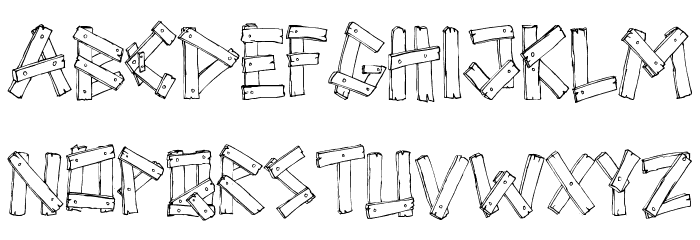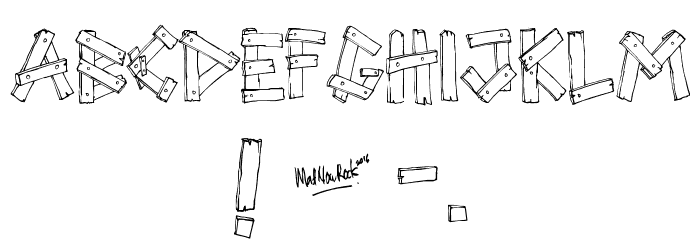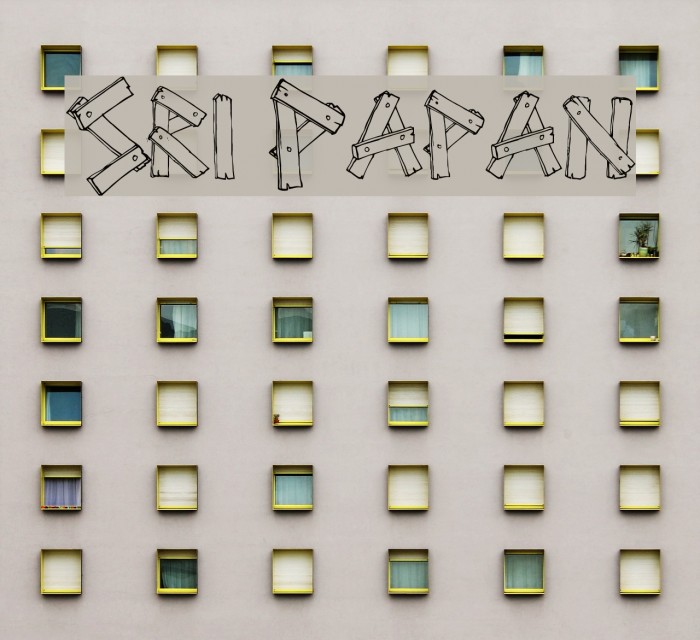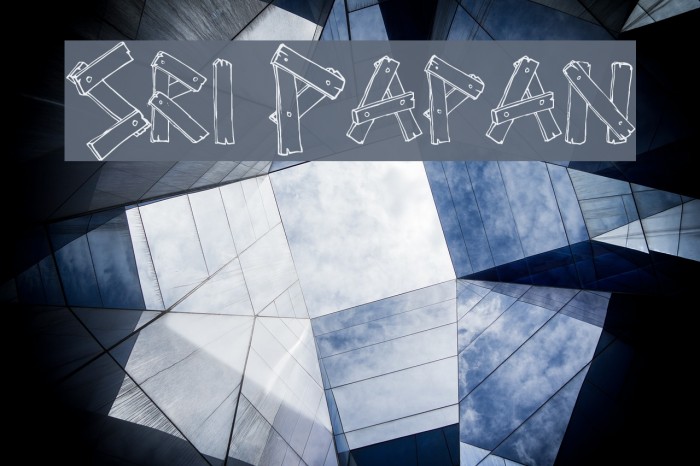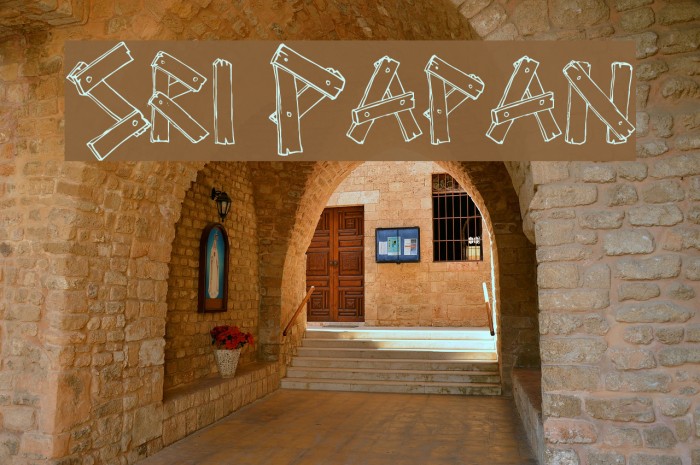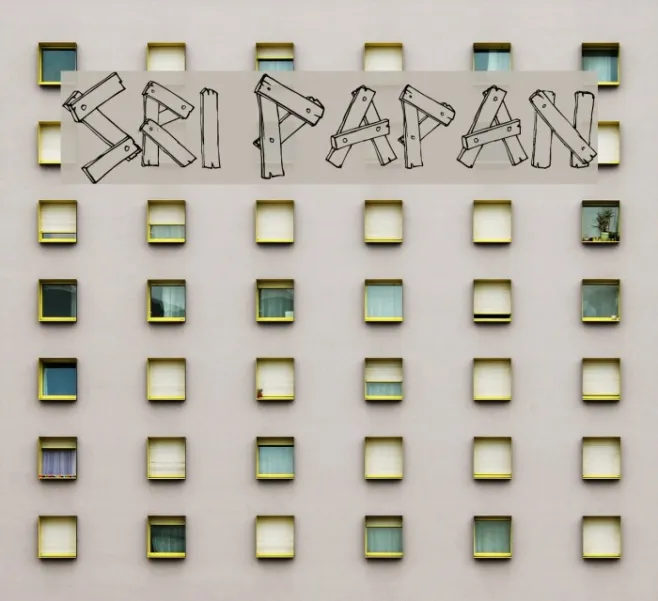
Sri Papan Font
This font features a unique, playful design that resembles wooden planks or sticks assembled to form each letter. The characters are constructed with a hand-drawn, sketch-like quality, giving them a rustic and whimsical appearance. Each letter is composed of multiple segments, often with visible 'nails' or 'screws' at the joints, enhancing the handcrafted look. The style is consistent across uppercase and lowercase letters, as well as numbers and special characters. This font is highly decorative and stands out due to its unconventional structure and artistic flair.
A playful, hand-drawn font resembling wooden planks assembled into letters.
- Proposed Projects: Ideal for children's book covers, playful branding, DIY project labels, or any creative design needing a rustic, handcrafted feel.
- Contrast:
- Overall Style: Whimsical, Rustic, Handcrafted
- Use Case: Logos, Posters, Creative Titles